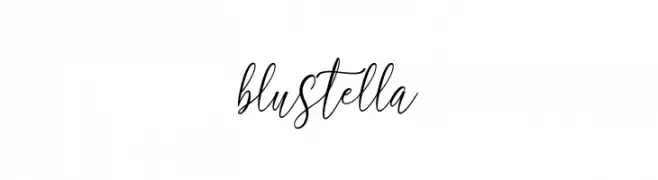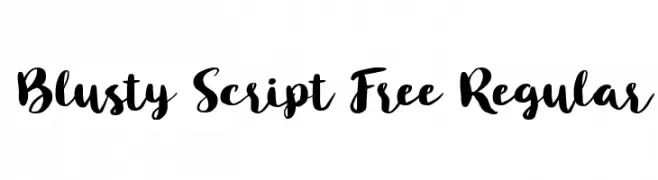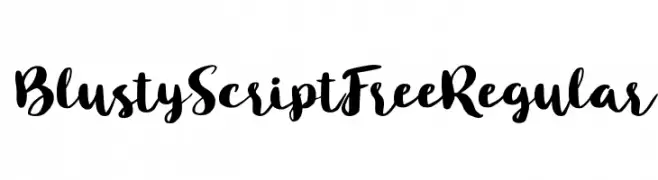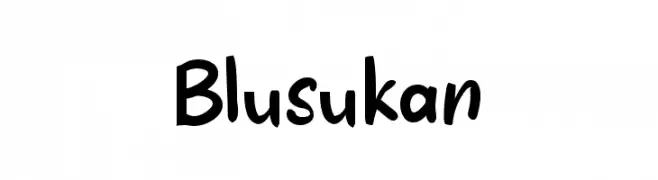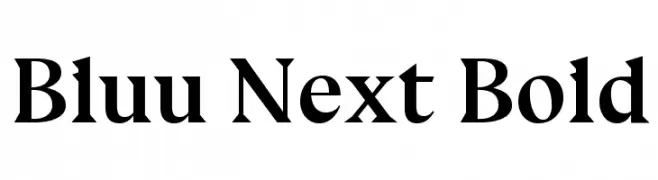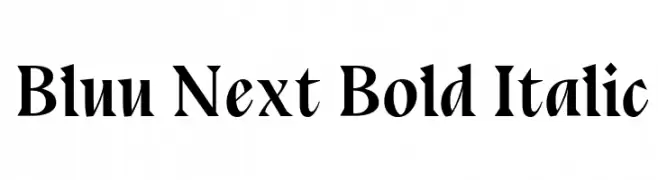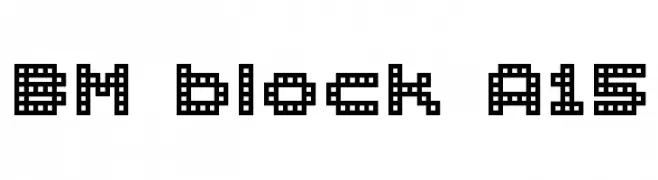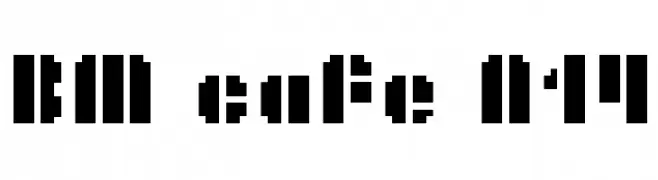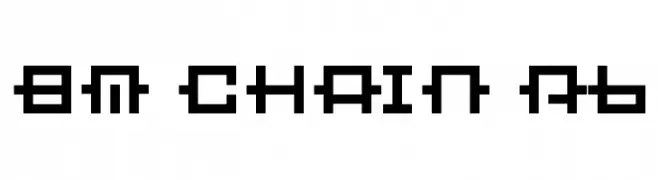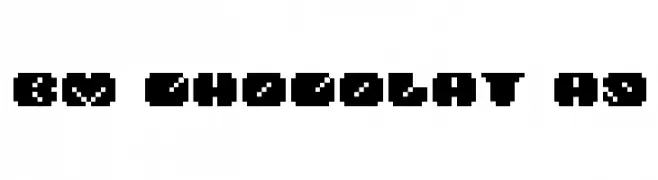
A bold, playful handwritten font with smooth, thick strokes.
A decorative and elegant script font with flowing, intricate letterforms.
An elegant script font with flowing, cursive letterforms and artistic flourishes.
An elegant script font with flowing, cursive letters and sophisticated style.
A lively handwritten font with fluid strokes and dynamic character.
A bold, expressive script font with flowing, cursive letterforms and dynamic strokes.
A bold, flowing script font with a hand-drawn, connected style.
A bold, playful handwritten font with a casual and friendly style.
A bold, geometric font with angular, digital-inspired letterforms.
A geometric, modern font with angular, block-like characters.
A bold serif font with strong strokes and sharp serifs, offering a classic yet modern look.
A bold, italic serif font with sharp serifs and high contrast strokes.
A bold serif font with strong strokes and sharp serifs, exuding authority and sophistication.
A bold, italic serif font with high contrast and dynamic style.
A flowing, cursive script font with elegant, connected letters.
Elegant, casual handwritten script with connected, flowing strokes.
A bold, handwritten font with an energetic and casual style.
A bold, pixelated font with a retro, geometric design.
A pixelated, blocky font with a retro digital aesthetic.
A bold, geometric font with a blocky, digital appearance.
A bold, pixelated font with a retro, digital style.
A geometric, condensed font with a retro digital aesthetic.
A bold, modern sans-serif font with clean lines and uniform strokes.
A bold, pixelated font with a retro, digital aesthetic.